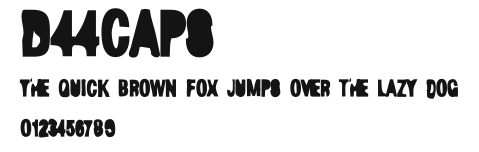
D44Caps Preview
• Font Name: D44Caps
• Full Font Name: D44Caps-Bold
About D44Caps.otf
D44Caps.otf is a modern, elegant sans-serif font designed for ultimate readability and visual harmony. Perfect for branding, headlines, web design, and print materials.